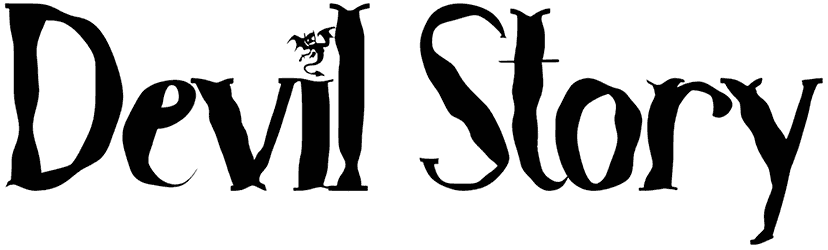
Devil Story Font
Let’s write an attractive, spooky story with an eerie, evil font such as Devil Story. With shady form letters, this Halloween font supports full characters and conveys a dark and witchy mood. Your designs, like scary illustrations, invitations, apparel, mugs, and so forth, can mirror a playful and mysterious vibe with Devil Story.